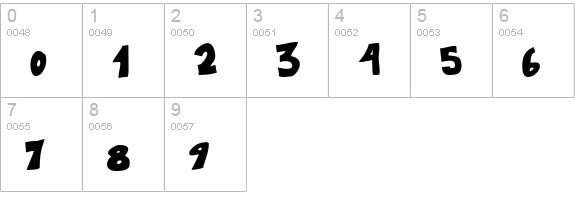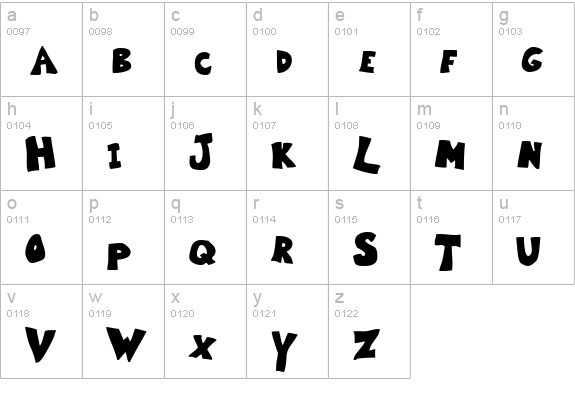
Kartoone Solid Font Details
Kartoone Solid is a bold and eye-catching font that is perfect for making a statement. With its strong and sturdy letterforms, this font is sure to grab attention and leave a lasting impression. Whether you're designing a logo, creating a poster, or working on a branding project, Kartoone Solid is a great choice for adding a touch of modernity and personality. This font features clean lines and a solid construction, making it highly legible at both small and large sizes. Its unique character shapes give it a playful and energetic vibe, making it suitable for a wide range of applications. From advertising to packaging, Kartoone Solid will make your design stand out from the crowd. One of the best things about Kartoone Solid is that it is available for free download at FontsMarket.com. This means that you can access this fantastic font without any cost, making it a valuable asset for designers on a budget. So why wait? Visit FontsMarket.com today and get your hands on this amazing font that will take your designs to the next level.